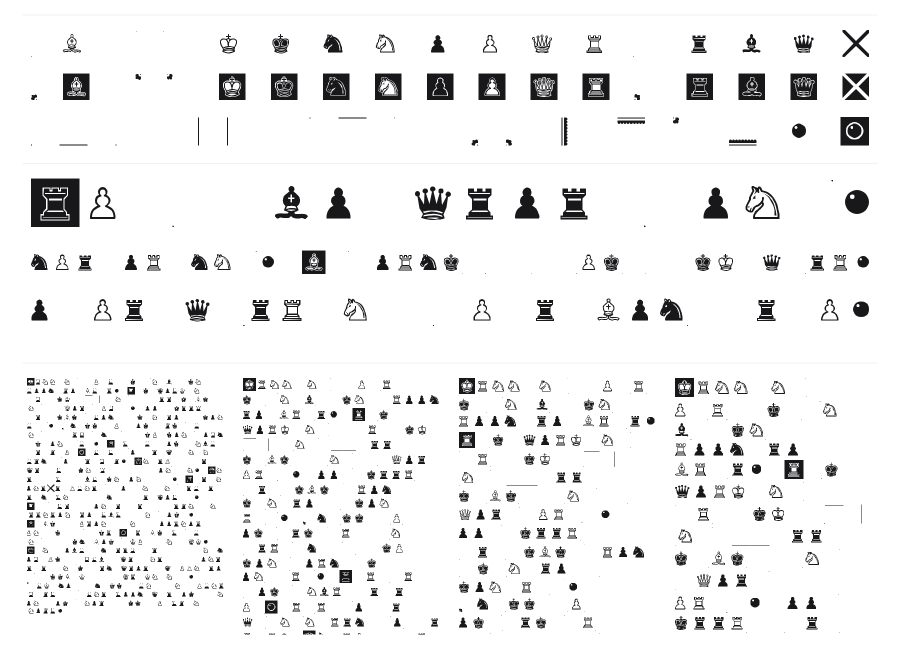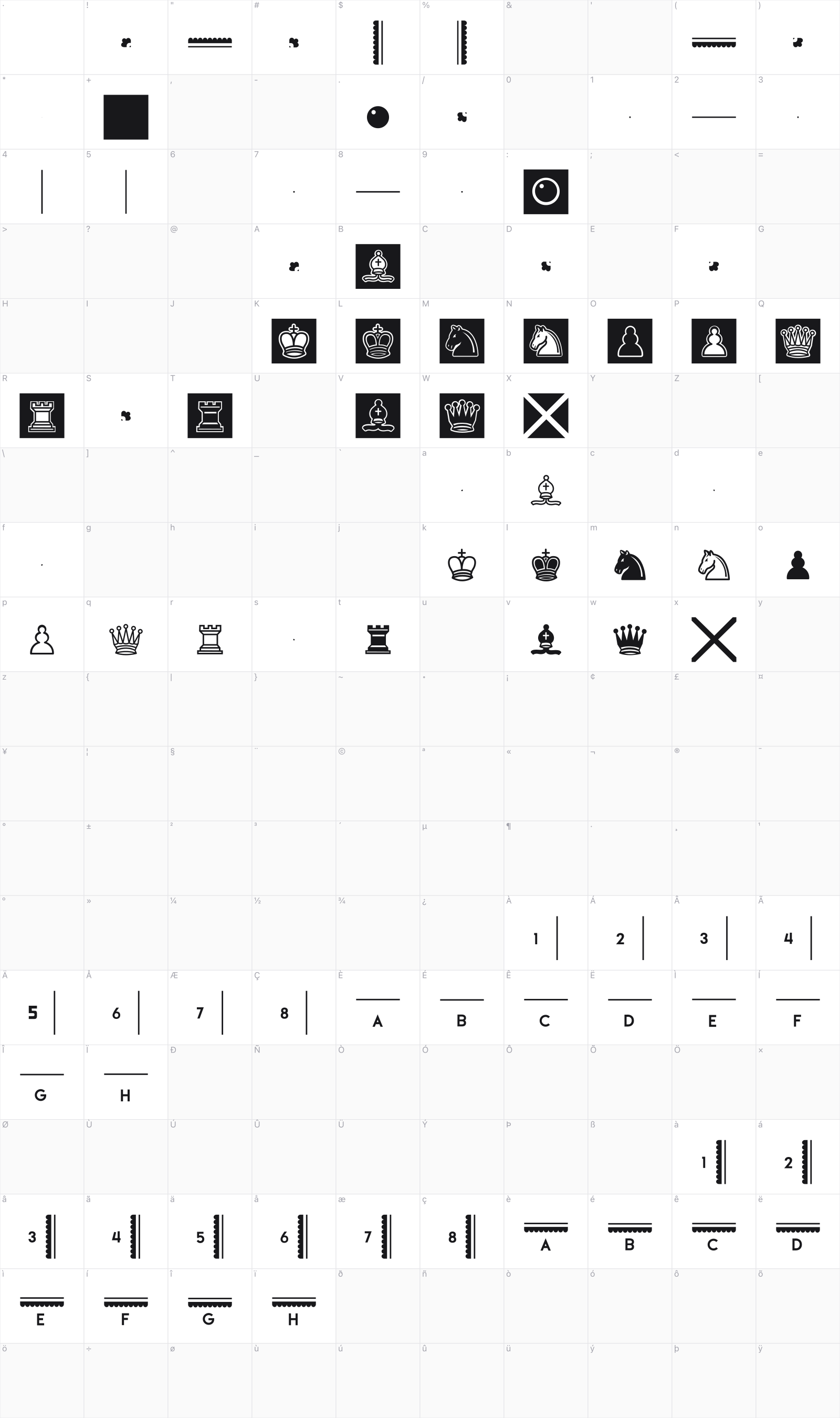
Schach
Schach is a chess-themed dingbat font featuring the complete set of chess pieces as clean, outlined icons. Each piece draws from classic Staunton design traditions, rendered with consistent stroke weight and crisp detail. Useful anywhere a designer needs recognizable chess imagery in a scalable, font-based format.